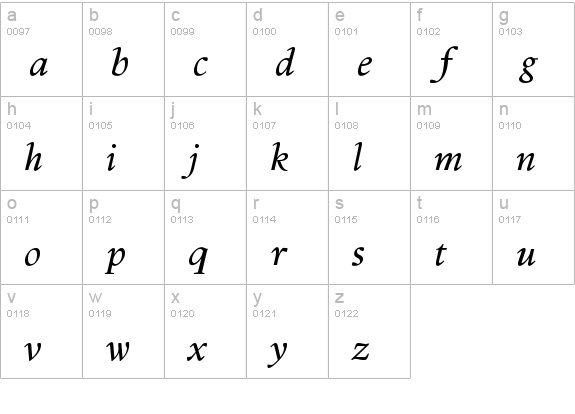
Kennedy Medium Italic is a balanced, medium-weight, italic variant in the Kennedy typeface family \xE2\x80\x94 well suited to sub-headlines, navigation, and balanced editorial work.
Introducing Kennedy Medium Italic font, a perfect blend of elegance and readability. This font exudes a sense of sophistication with its subtly slanted and stylishly curved characters. Its medium weight adds a touch of balance, making it suitable for a wide range of design projects. What sets Kennedy Medium Italic font apart is not just its exceptional aesthetics, but also the fact that it is freely available to download at FontsMarket.com. Yes, you heard it right! This remarkable font can be yours at no cost, allowing you to elevate your creative endeavors without breaking the bank. Whether you're designing a logo, creating stunning headlines, or crafting eye-catching social media posts, Kennedy Medium Italic font is the perfect choice to add a touch of class to your designs. Its italicized nature brings a sense of dynamism and flair, making it ideal for capturing attention and leaving a lasting impression. With its generous character set, you'll find everything you need to bring your vision to life. From uppercase and lowercase letters to numbers, symbols, and punctuation marks, Kennedy Medium Italic font has got you covered. Don't miss out on this incredible opportunity to enhance your design arsenal with a font that seamlessly marries sophistication and accessibility. Download Kennedy Medium Italic font for free at FontsMarket.com and let your creativity soar to new heights.